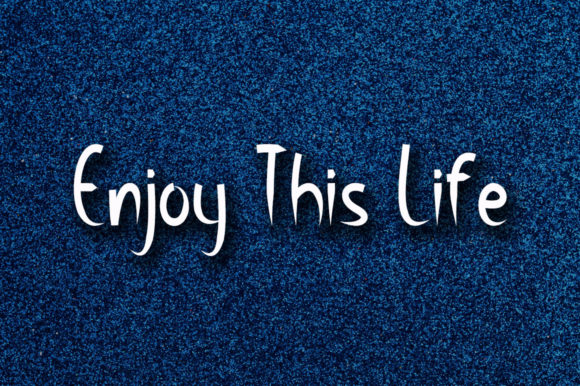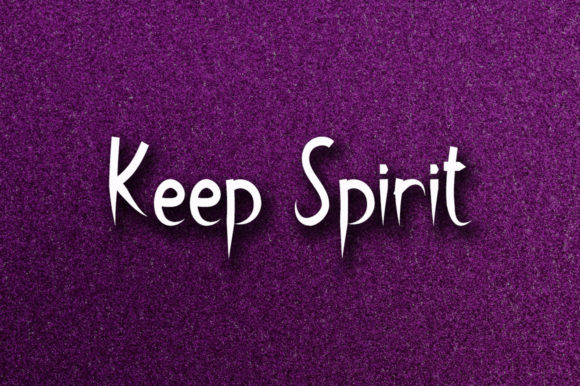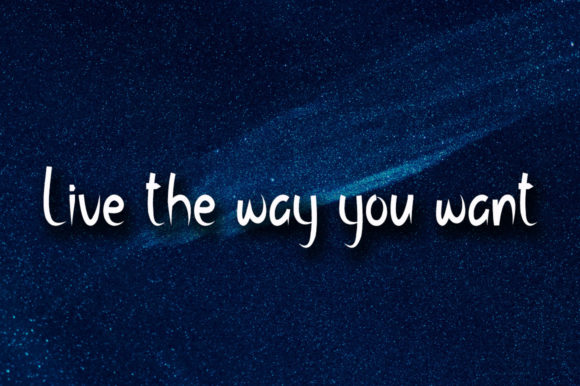
Introduction to Kawaki Font
Remember that moment when you’re brainstorming ideas for a creative project and you finally stumble upon the perfect font? It’s like the missing puzzle piece that brings everything together. For designers, finding the right font can be a game-changer, and that’s exactly what the Kawaki Font offers. This cool and modern handwritten font is a design resource that can elevate any project, from crafting and digital designing to presentations and greeting cards making.
With its unique and stylish design, the Kawaki Font is a high-quality addition to any design arsenal. Its versatility makes it perfect for designers who want to create something truly special. Whether you’re working on a personal project or a client assignment, this font is sure to impress. Plus, with a transparent background, you can easily layer it over other design elements to create a visually striking effect.
Kawaki Font
- High-quality, unique design for creative projects
- Includes multiple font styles and weights for added versatility
Honest Review: Kawaki Font
I recently stumbled upon the Kawaki Font and I’m excited to share my honest thoughts on this design resource. As a designer, I’m always on the lookout for high-quality fonts that can elevate my creative projects. The Kawaki Font does just that, offering a unique and stylish design that can add a touch of sophistication to any project.
One of the standout features of the Kawaki Font is its versatility. It’s perfect for use on a transparent background, allowing the design to take center stage. The font is also highly customizable, making it a great choice for designers who want to add a personal touch to their work. I’ve used it in a few projects already, and it’s been a game-changer.
- Unique and stylish design
- Perfect for use on a transparent background
- May not be suitable for projects that require a more formal or traditional font
- Limited availability in different font styles
Overall, I’m really impressed with the Kawaki Font. It’s a high-quality design resource that’s perfect for creative projects. While it may have a few limitations, it’s definitely worth considering for your next design project.
Kawaki Font
The Kawaki Font is a high-quality design resource that offers a unique and creative touch to your projects. With its transparent background, this font is perfect for use in various design applications.
Getting the Most Out of Kawaki Font
Here are some tips to get the most out of the Kawaki Font:
Use it for headings and titles to add a creative touch to your designs.
Combine it with other design elements to create a unique visual identity.
Experiment with different font sizes and colors to achieve the desired effect.
The Kawaki Font is perfect for:
Creating eye-catching social media graphics.
Designing unique posters and flyers.
Adding a creative touch to presentations and reports.